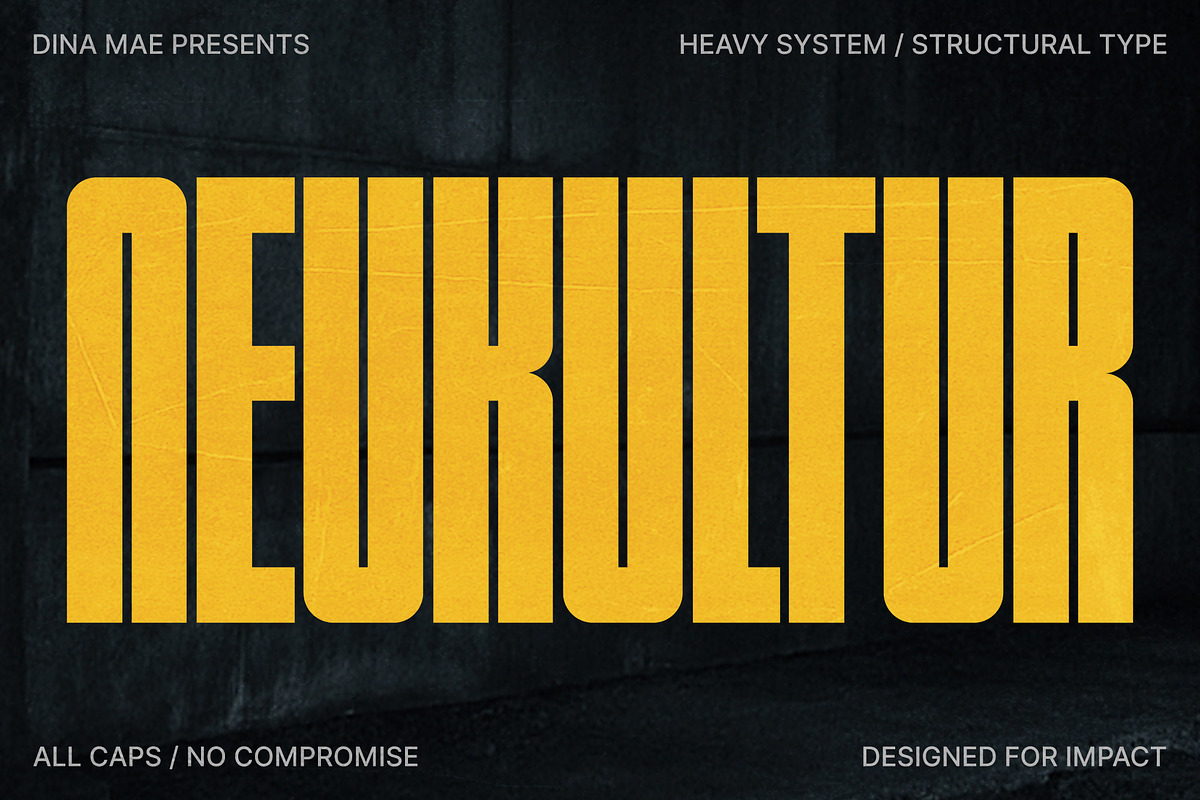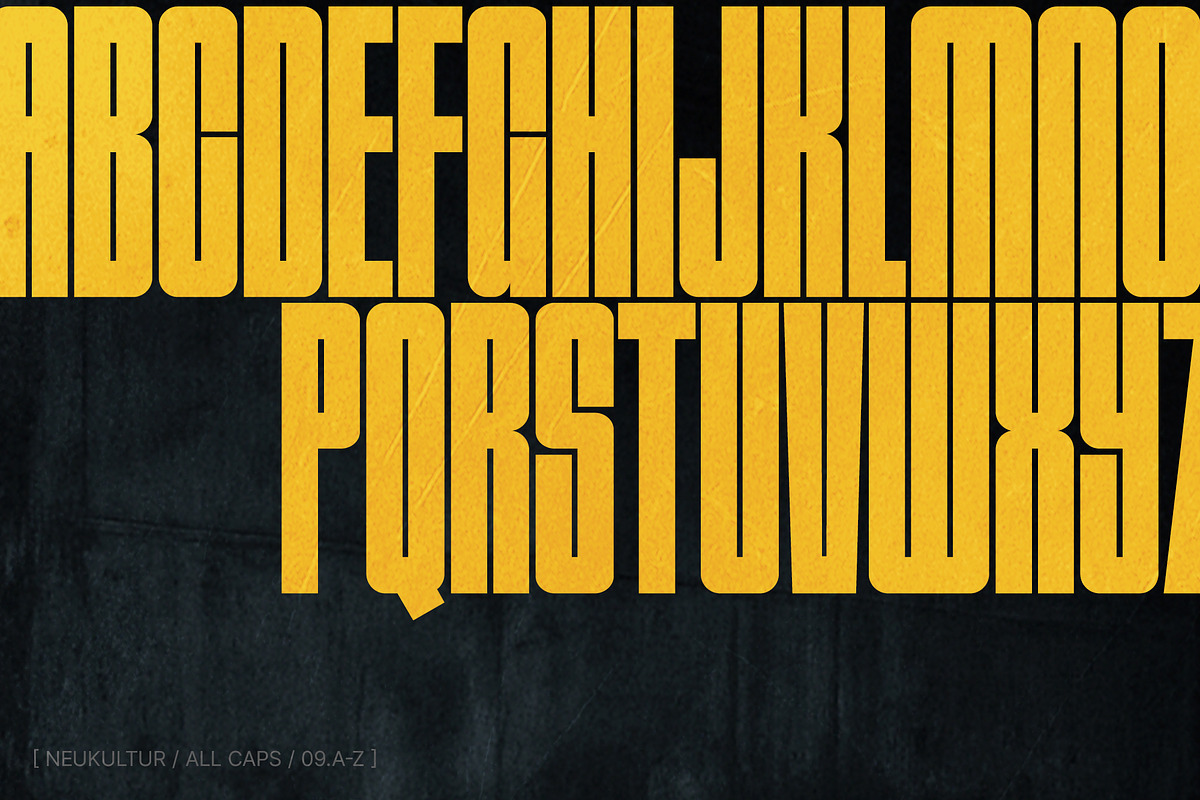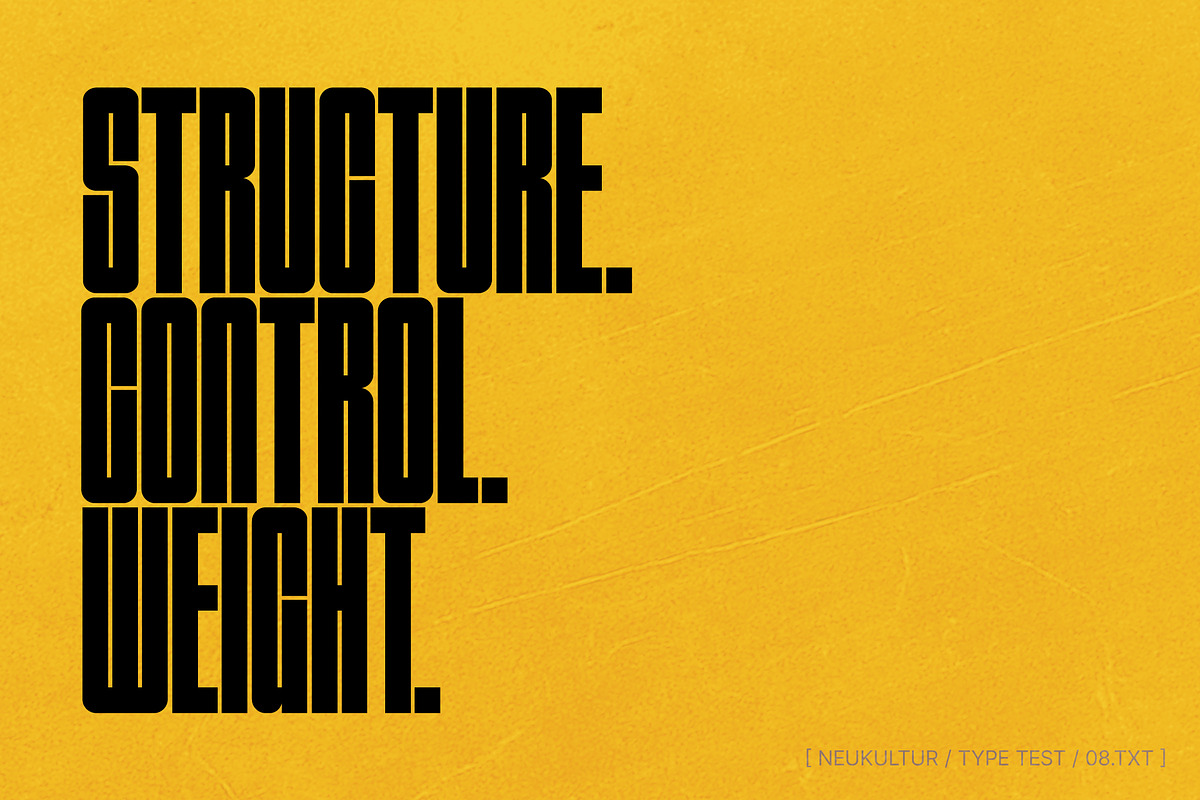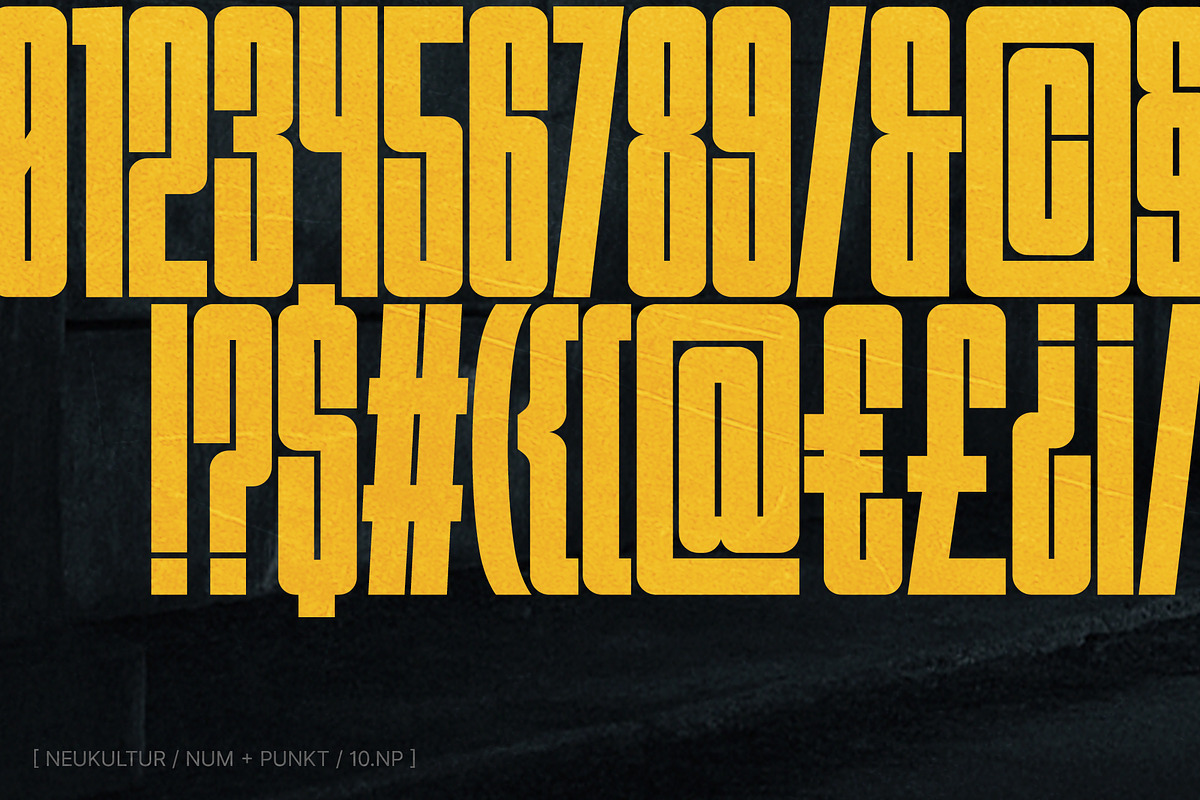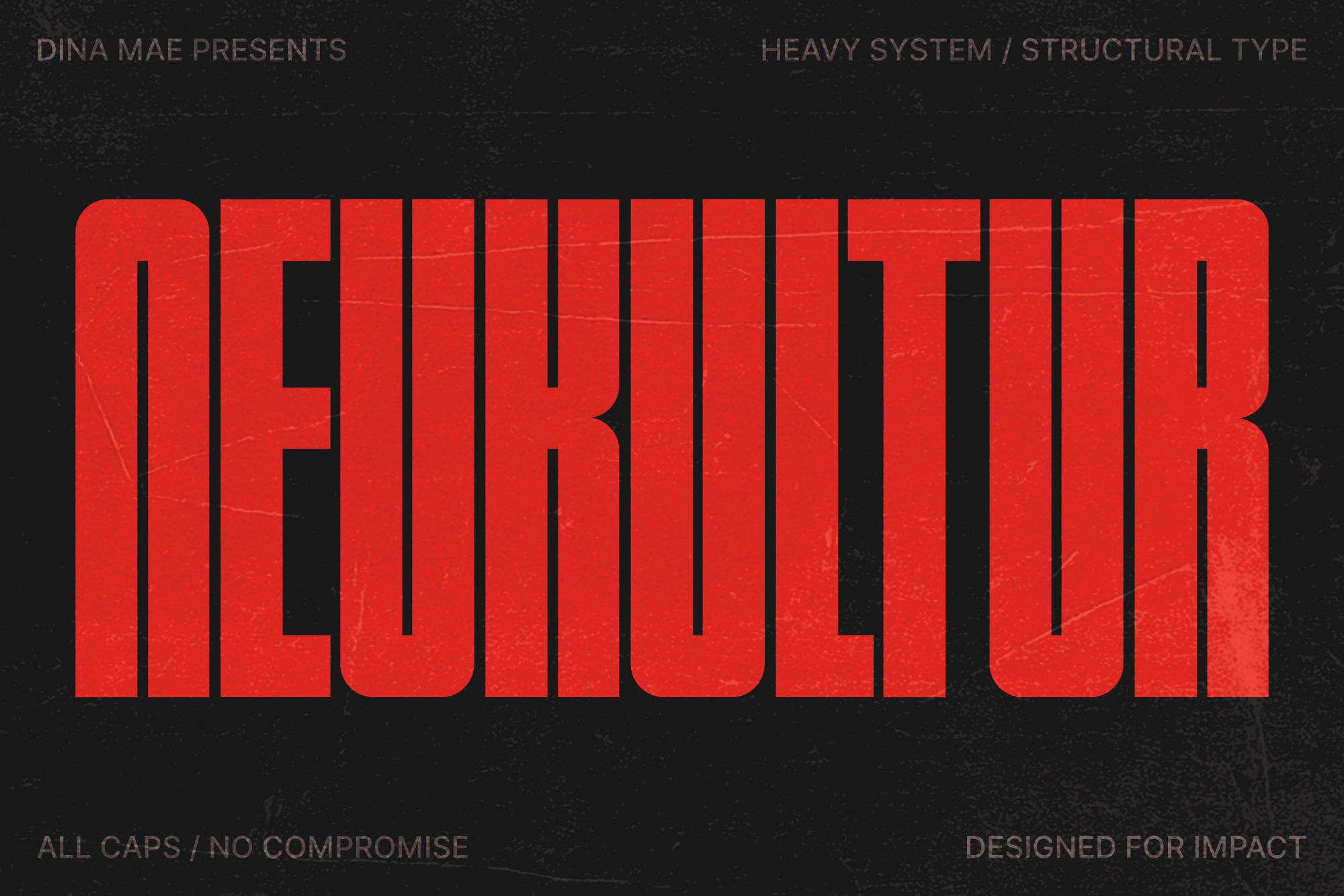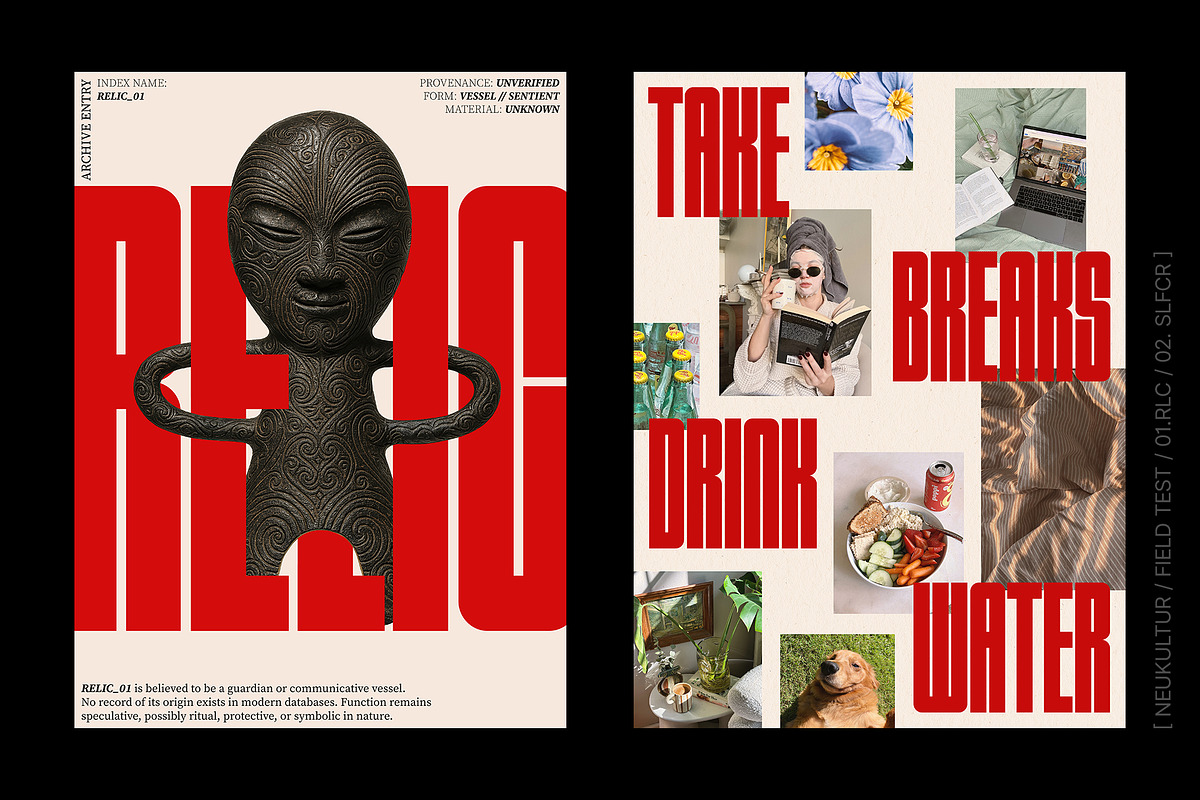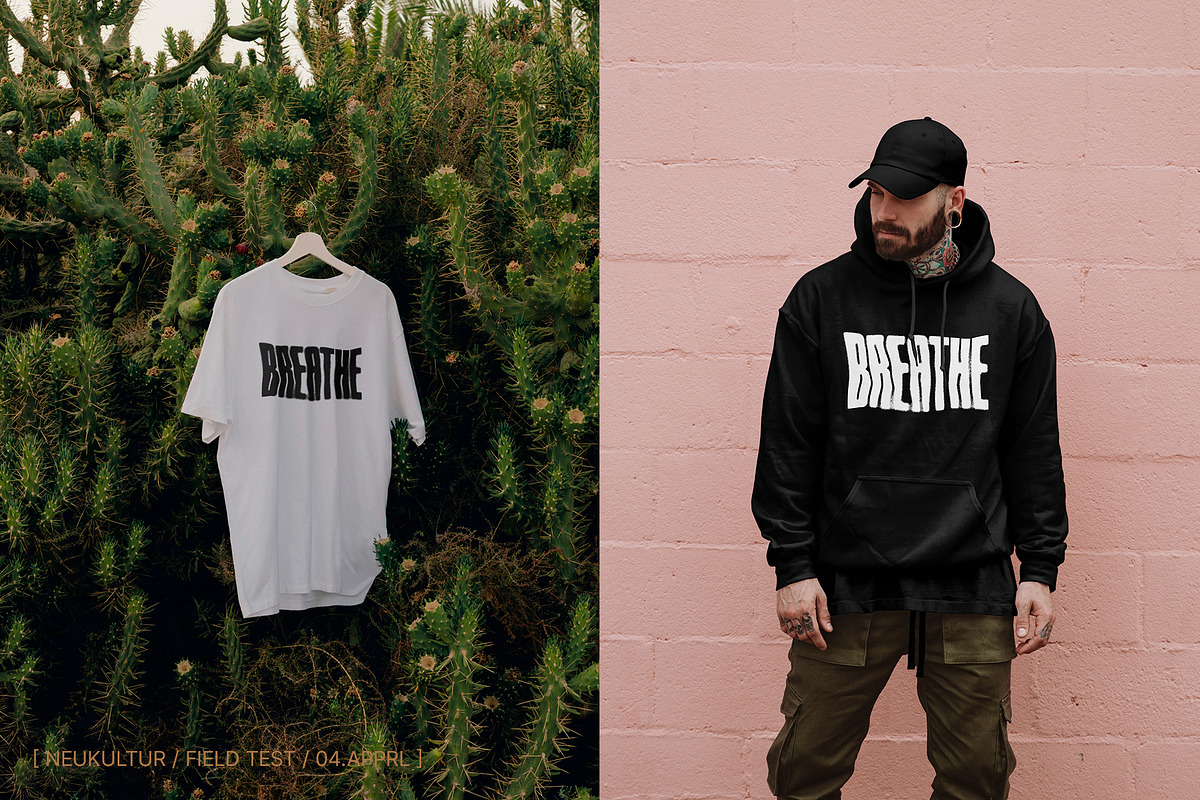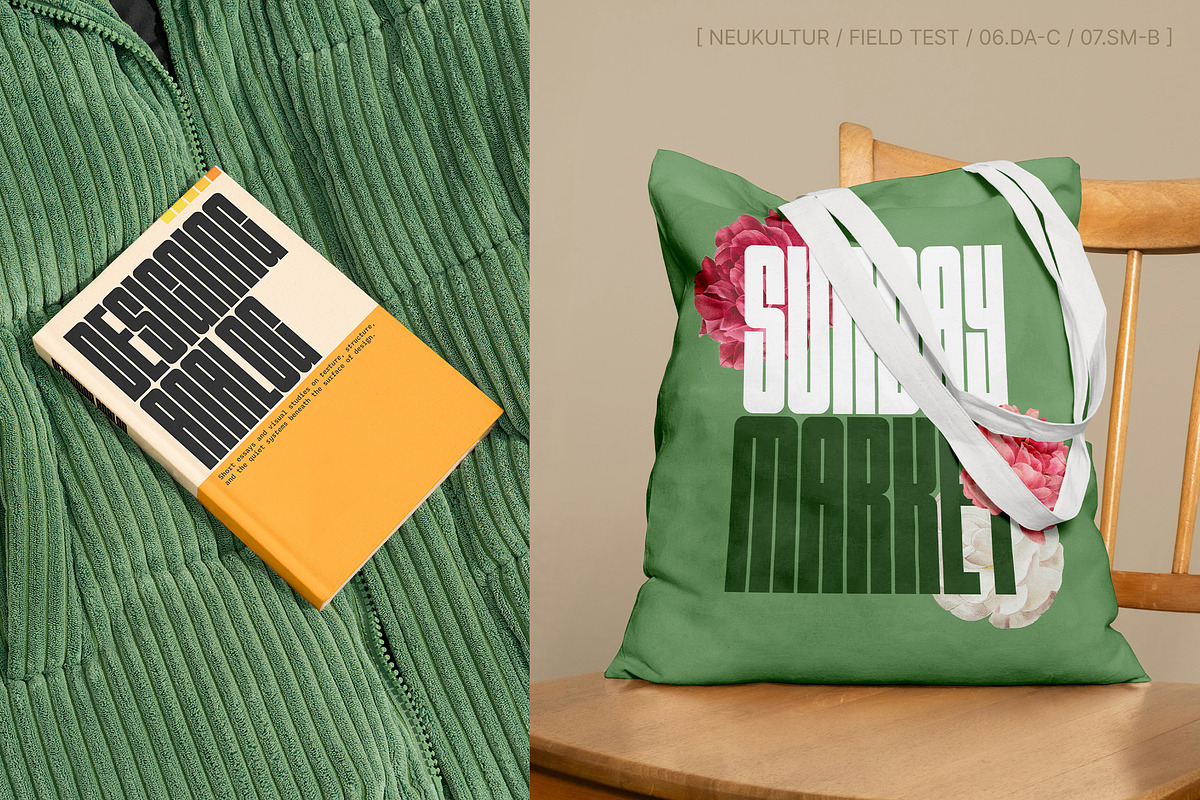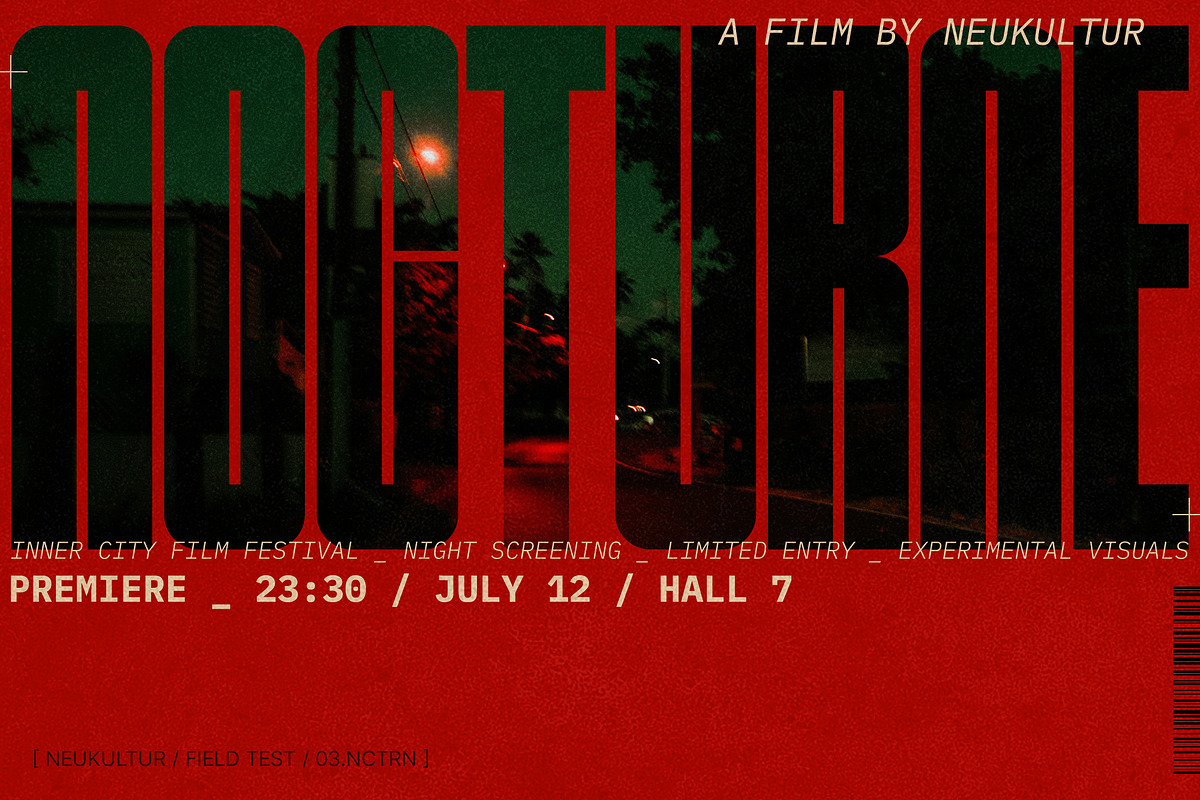
NEUKULTUR - Compressed Display Font
NEUKULTUR is a bold compressed all-caps display font designed for clarity, impact, and structure. Its sharp vertical rhythm and tight letterforms make it ideal for posters, headlines, labels, and systems where space is limited but presence matters. Inspired by archival systems, brutalist layouts, and print-era urgency, it brings clarity to chaos and structure to noise. Designed for posters, apparel, and surfaces that hold intention. Use it when you want to be loud without shouting.